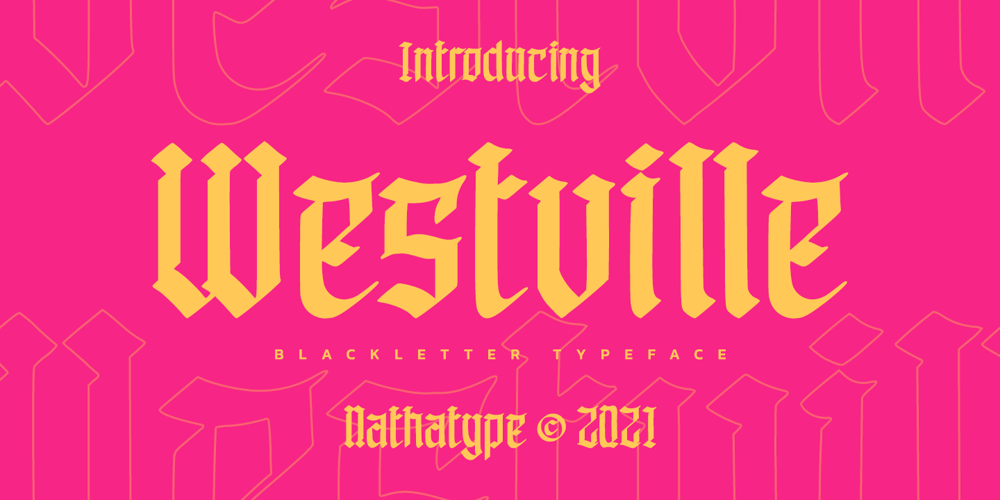
Westville Font Family was designed by Donis Miftahudin and published by Nathatype. Westville contains 1 styles and family package options. Are you ready to make your branding stand out? Do you dream of creating headings that stand out and inspire creativity, imagination, modernity, and endless fun? Looking for an elegant and stylish font? We’ve got what you want.Westville- A Blackletter FontWestville is an incredibly unique and distinct blackletter font. The style was influenced by many fonts and extra touch of urban street attitude. This is a timeless font that suits and fit perfectly in any timeframe or style you want. Well suited for you who needs for headline, logotype, apparel, branding, packaging, advertising, and many more.Our font always includes Multilingual Support to make your branding reach a global audience. Features: PUA Encoded Numerals and Punctuation Thank you for downloading premium fonts from Natha Studio